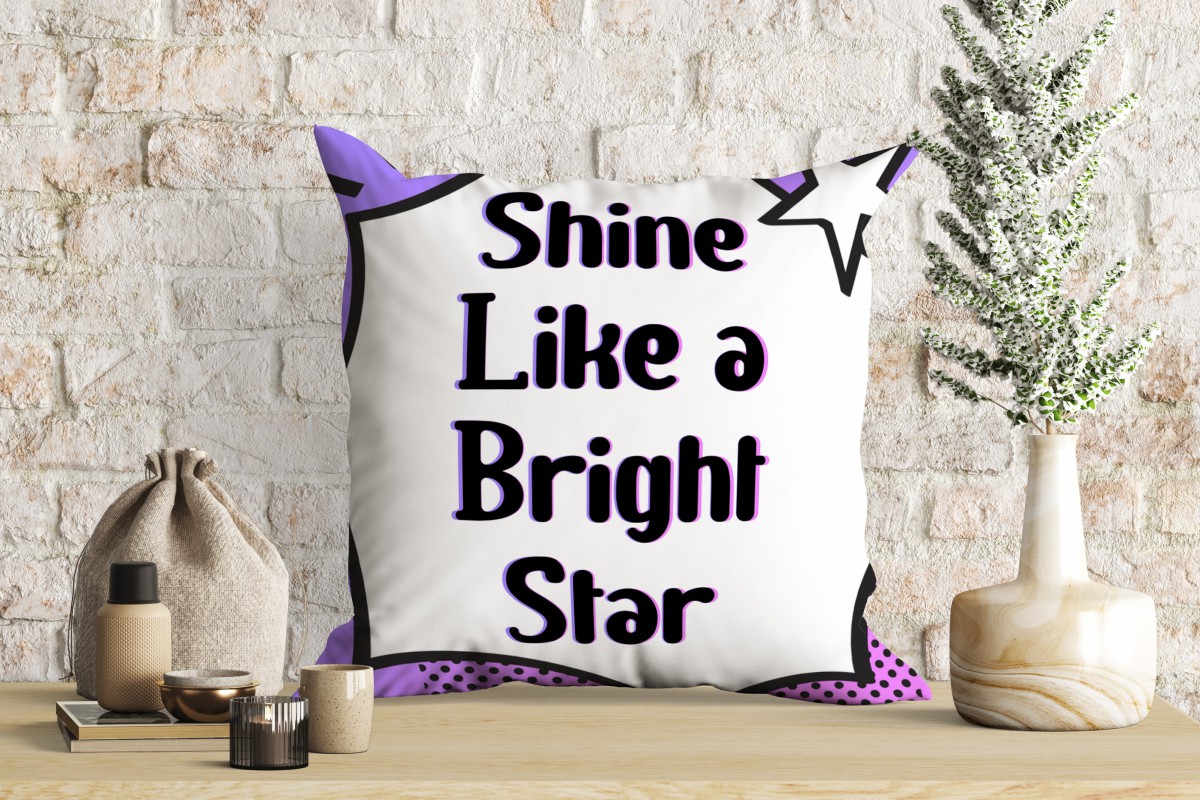
Clone Star Font
Clone Star Display Font
It’s cute display font with cartoon style. This font is packed with two different styles, Regular and Italic. All the characters in this font will work well with other font types. Use this font to enhance any design you create, such as brochure, contents, cover, invitation, labels, poster, product packaging, quotes, screen printing, stationery, sticker, title, website, etc.